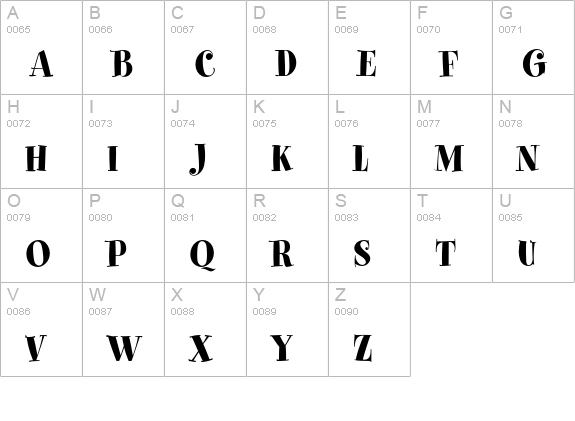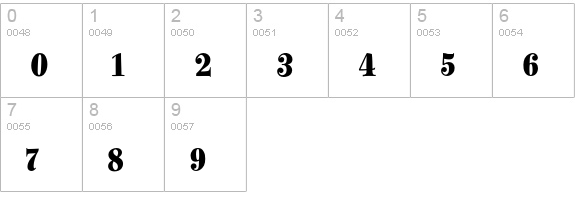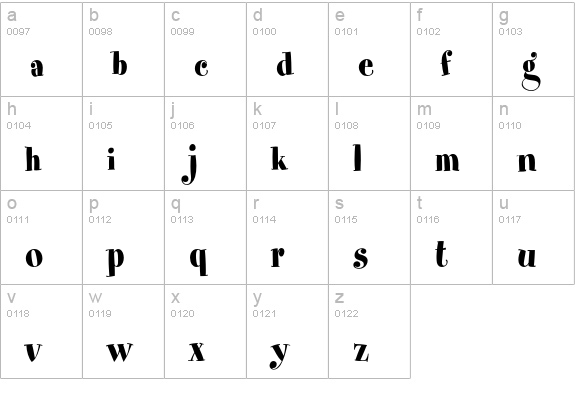
Spumoni LP Std Font Details
Spumoni LP Std font is a delightful and versatile typeface that exudes elegance and charm. With its unique blend of classic and modern elements, this font is perfect for adding a touch of sophistication to any design project. Featuring a harmonious mix of rounded shapes and sharp edges, Spumoni LP Std font captures attention with its distinctive and stylish appearance. It effortlessly combines legibility with artistic flair, making it suitable for a wide range of applications, from elegant invitations to eye-catching headlines. This font offers a generous selection of weights and styles, allowing you to effortlessly create beautifully balanced typography. Whether you're aiming for a bold and impactful statement or a more subtle and refined look, Spumoni LP Std font has got you covered. One of the best parts about Spumoni LP Std font is that it is freely available to download at FontsMarket.com. This means that you can instantly enhance your designs without breaking the bank. The ease of access to this high-quality font ensures that creativity knows no bounds. So, whether you're a professional designer or a passionate hobbyist, Spumoni LP Std font is a must-have addition to your font collection. Its versatility, elegance, and the fact that it is freely available to download make it the perfect choice for any project. Explore the endless possibilities that this font holds and let your creativity soar to new heights.